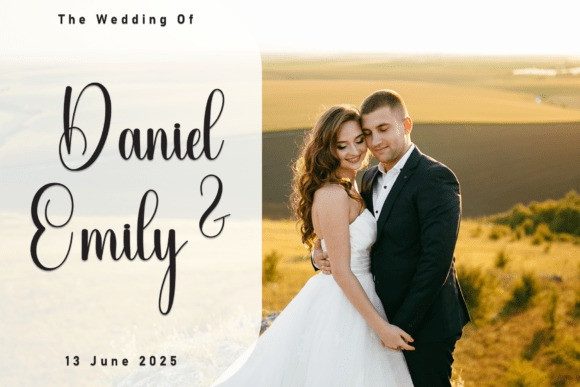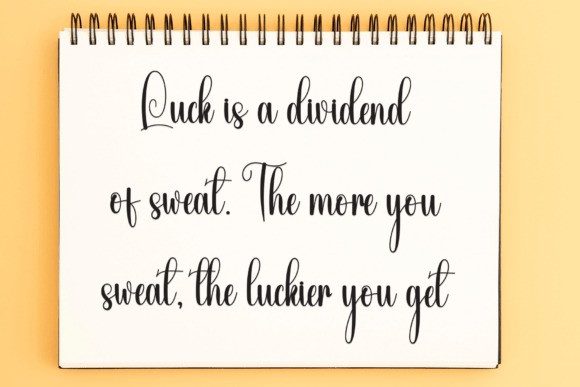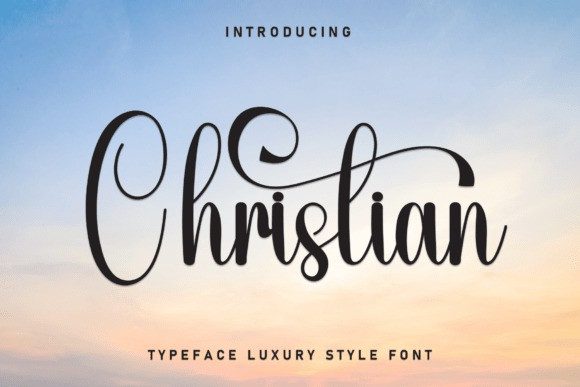
Christian Script Font
Christian Script Font an enchantingly personable handwritten display font – an embodiment of warmth and charm. Fun with a hint of whimsy, this adorable font lends itself perfectly to wedding invitations, heartfelt greetings cards, or any design project seeking an infusion of effortless joy. Its delightful character promises to infuse your creations with an irresistible casual elegance that exudes sweetness and friendliness. Capture the spirit of fun-filled festivities and heartwarming connections with this charming font.